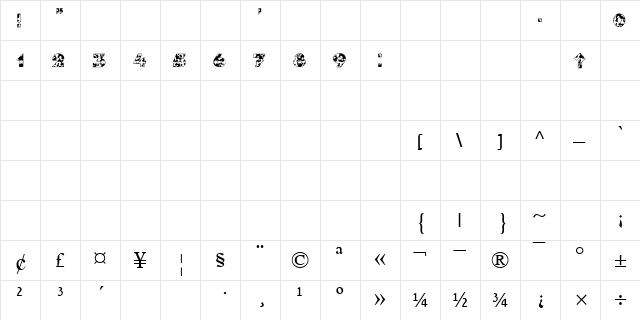
ANS para Regular
Design Context for ANS para Typeface
ANS para takes a measured approach to typography — its balanced proportions and neutral character make it a reliable workhorse for both digital and print work.